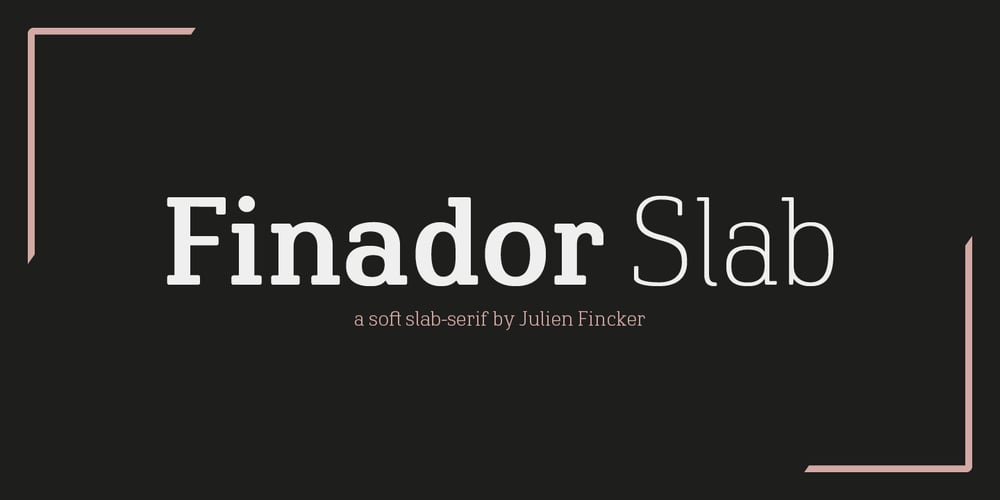
Finador Slab
Finador Slab font
Finador Slab Font Family was designed by Julien Fincker and published by Fincker Font Cuisine. Finador Slab contains 16 styles and family package options. Finador Slab is a soft slab-serif family. It has a strong character and can be used for a lot of cases, especially for editorial, branding, packaging and logos. The Slab version is based on the Finador Sans version. It matches perfectly and can be used easily together. The Finador Slab family includes 8 weights, from thin to heavy + their matching italics. With 900+ glyphs per style it supports over 200+ latin based languages, includes an extended currency symbol set and a lot of Open Type Features like small caps, ligatures, fractions, alternates and many more. The lightest and boldest weights are good for display usage, while the middle weights can be also used for body text. Finador Slab supports almost every of your needs. It meets all the requirements to become your next favorite workhorse family. So just give it a try. The Medium weight is for free.